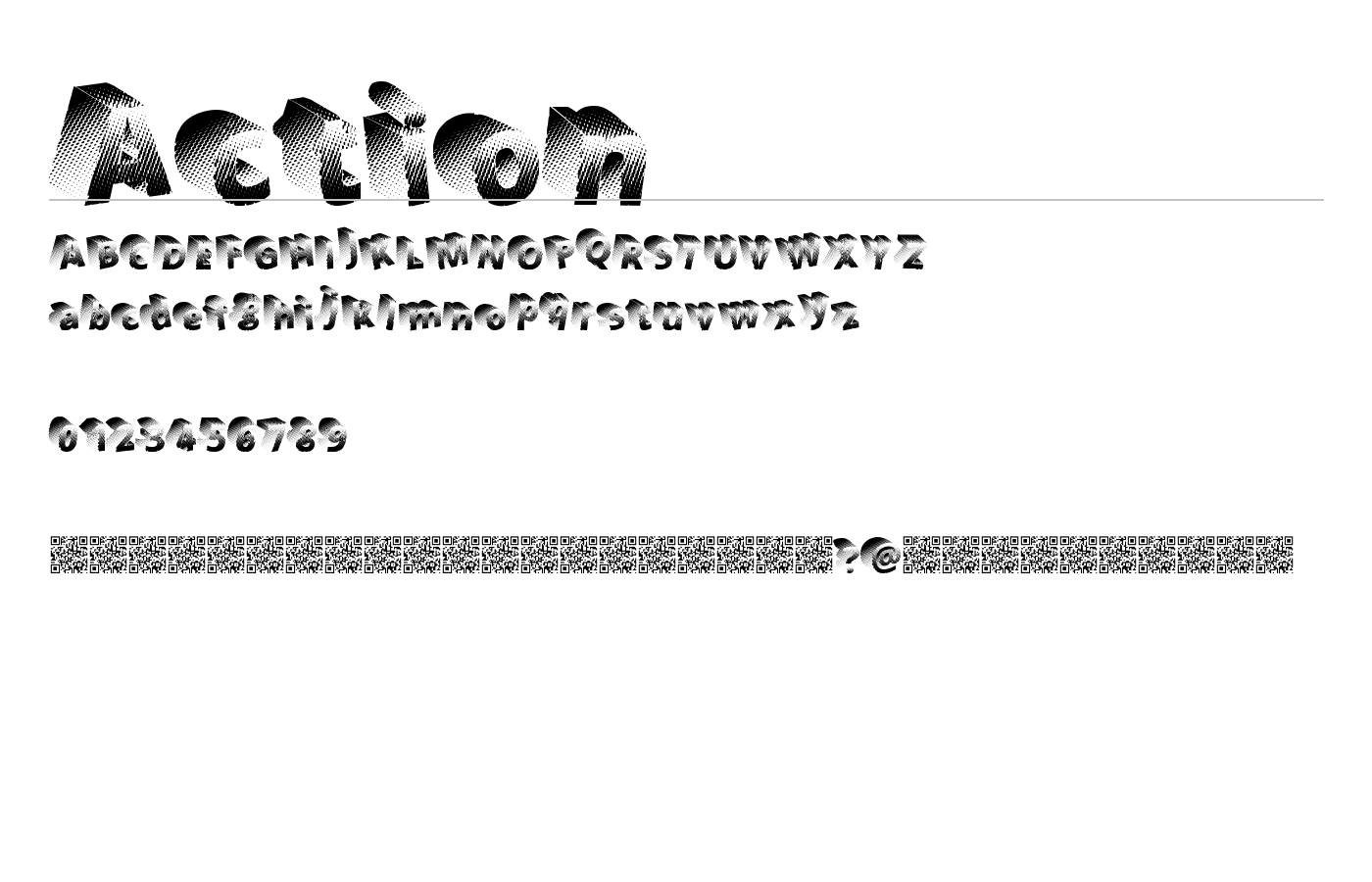
Action Font is a bold, playful sans serif typeface with a distinct 3D halftone shading effect that creates a dynamic sense of movement and energy. Its chunky letterforms and irregular shading give it a fun and eye-catching personality, making it ideal for lively headlines, posters, and branding that demands attention with a retro comic or pop art vibe. This font works best in display uses where impact and style are key, adding a vibrant, action-packed feel to any creative project.
Action Font